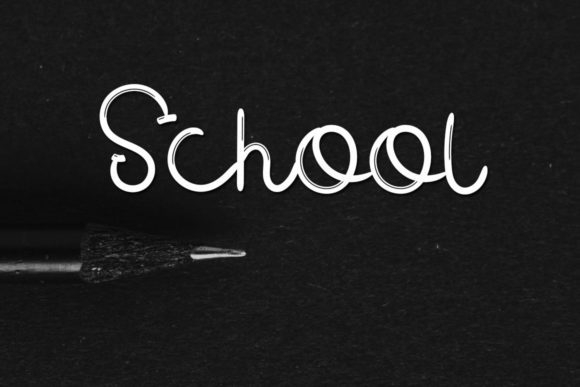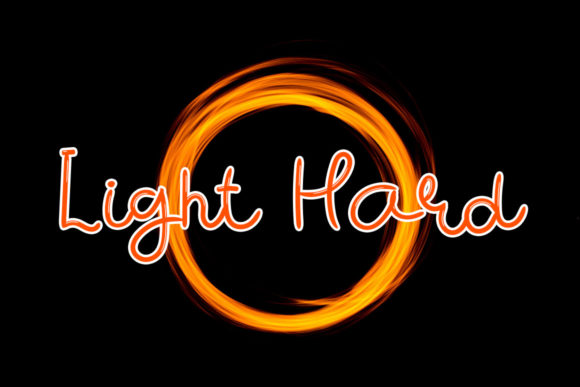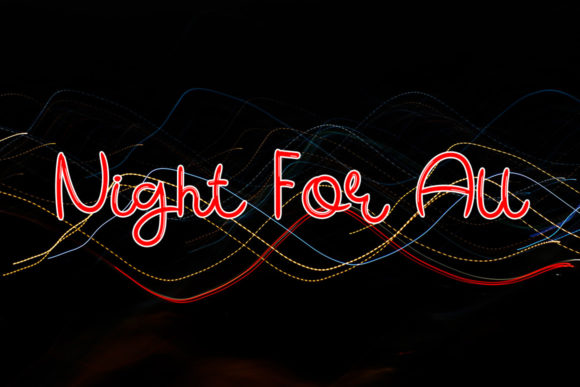
Brown Out Font: Elevate Your Designs with Elegance and Class
In the world of typography, fonts play a crucial role in conveying the tone and aesthetic of a design. For those seeking a beautiful and refreshing look, Brown Out Font is an excellent choice. This lovely and brushed script font exudes elegance and class, making it perfect for designers and crafters looking to elevate their projects.
The Story Behind Brown Out Font
Brown Out Font was particularly crafted for those who need a beautiful and refreshing look to their designs. The font’s creators aimed to develop a typeface that would bring a touch of sophistication and refinement to any project. With its unique blend of classic and modern elements, Brown Out Font has become a popular choice among designers and crafters.
Key Features of Brown Out Font
Brown Out Font boasts several key features that make it an excellent addition to any design toolkit. Some of its notable features include:
- Elegant and Classy Design: Brown Out Font’s brushed script design gives it a distinctive, high-end look that’s perfect for luxury brands, wedding designs, and other projects requiring a touch of sophistication.
- Versatile and Flexible: This font is highly versatile and can be used for a wide range of projects, from digital designs to print materials.
- Easy to Read: Despite its elegant design, Brown Out Font remains easy to read, making it perfect for body text and headings.
- Multilingual Support: Brown Out Font supports multiple languages, making it an excellent choice for designers working on international projects.
Uses of Brown Out Font
Brown Out Font’s versatility makes it suitable for various design applications, including:
- Wedding Designs: Add a touch of elegance to wedding invitations, stationery, and other wedding-related designs.
- Branding and Packaging: Use Brown Out Font to create luxurious brand identities and packaging designs that exude sophistication.
- Digital Designs: Enhance your digital projects, such as website headers, social media graphics, and email newsletters, with Brown Out Font’s elegant design.
- Print Materials: Use Brown Out Font for print materials like brochures, flyers, and posters to add a touch of class and refinement.
Tips for Using Brown Out Font
To get the most out of Brown Out Font, consider the following tips:
- Pair with Neutral Colors: Brown Out Font looks stunning when paired with neutral colors like beige, white, or light gray.
- Experiment with Font Sizes: Use Brown Out Font in various font sizes to create visual hierarchy and add emphasis to important text.
- Add Texture and Patterns: Combine Brown Out Font with textures and patterns to add depth and interest to your designs.
Brown Out Font is a beautiful and elegant script font that’s perfect for designers and crafters seeking to add a touch of sophistication to their projects. With its versatile design, easy readability, and multilingual support, Brown Out Font is an excellent choice for a wide range of design applications. Whether you’re working on a wedding design, branding project, or digital design, Brown Out Font is sure to elevate your work and leave a lasting impression.